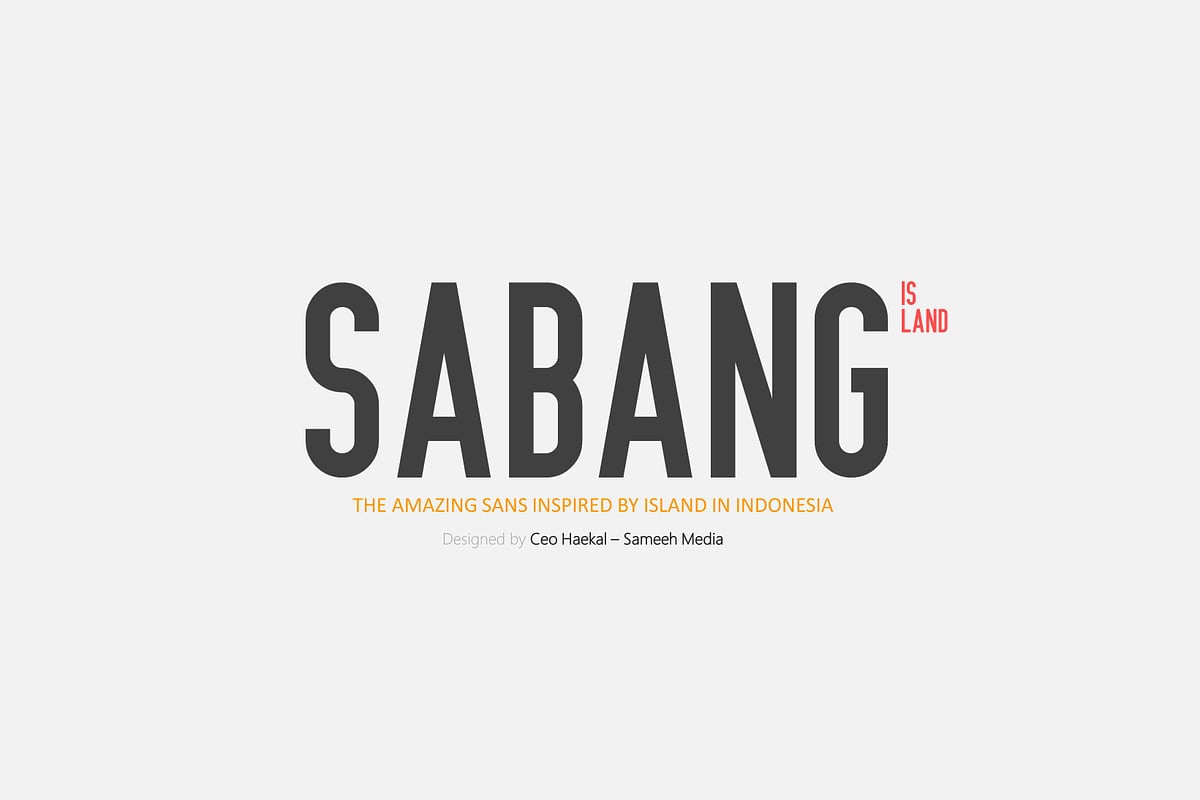
Sabang Island Typeface
A rugged, bold sans serif typeface built for designs that demand attention and character.
Sabang Island Typeface draws its name and spirit from Sabang, a city on Pulau Weh at the western tip of Indonesia — a thriving marine tourism destination and a paradise for divers. That sense of adventure and natural raw beauty is baked into every letterform.
The typeface comes in two distinct styles to suit a range of creative needs:
- Clean — a sharp, condensed sans serif with strong lines and modern appeal
- Rough — the same structure with a distressed, textured finish for a more rugged, handcrafted feel
Each style includes:
- Uppercase letters
- Lowercase letters
- Numbers & punctuation